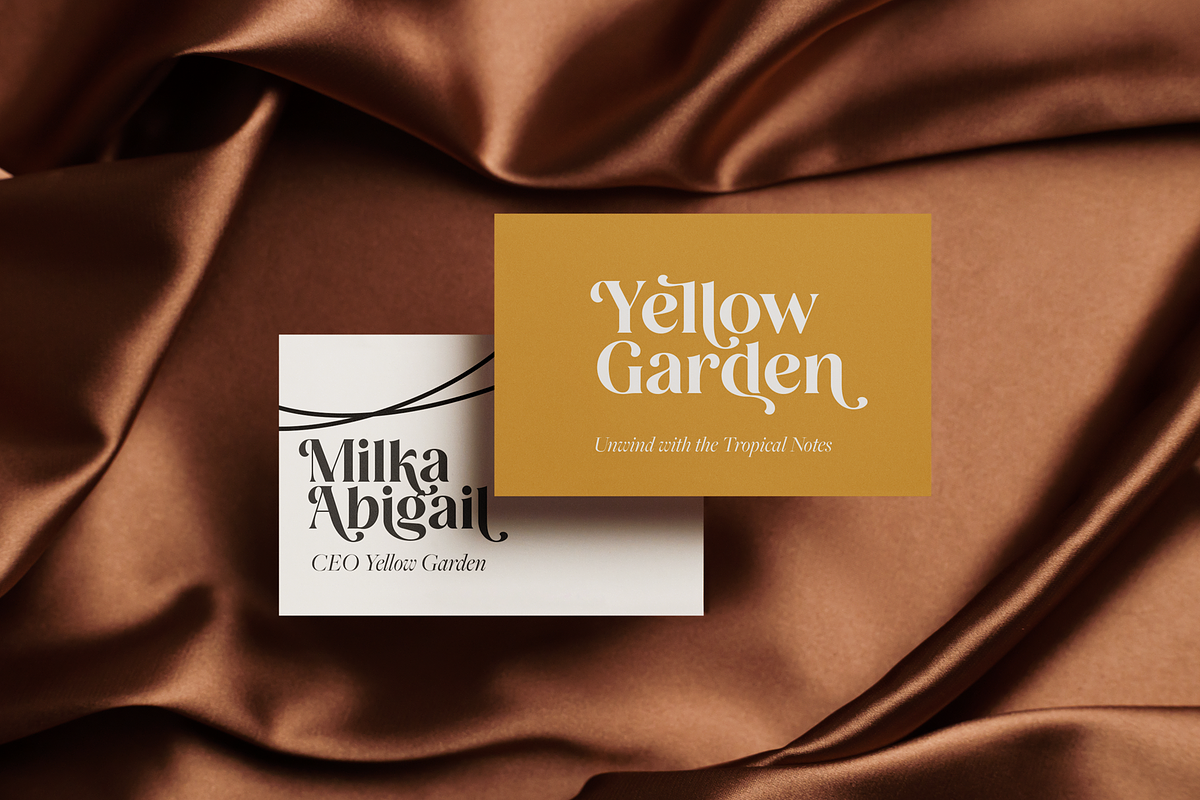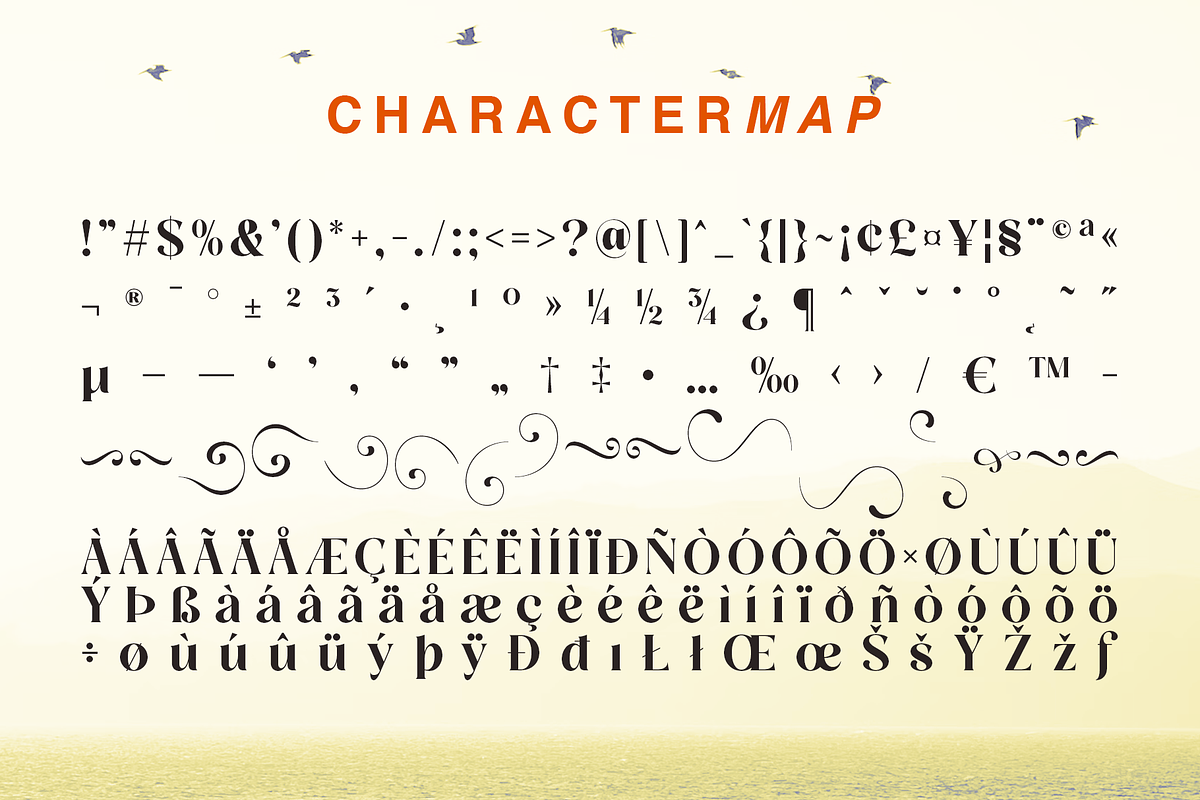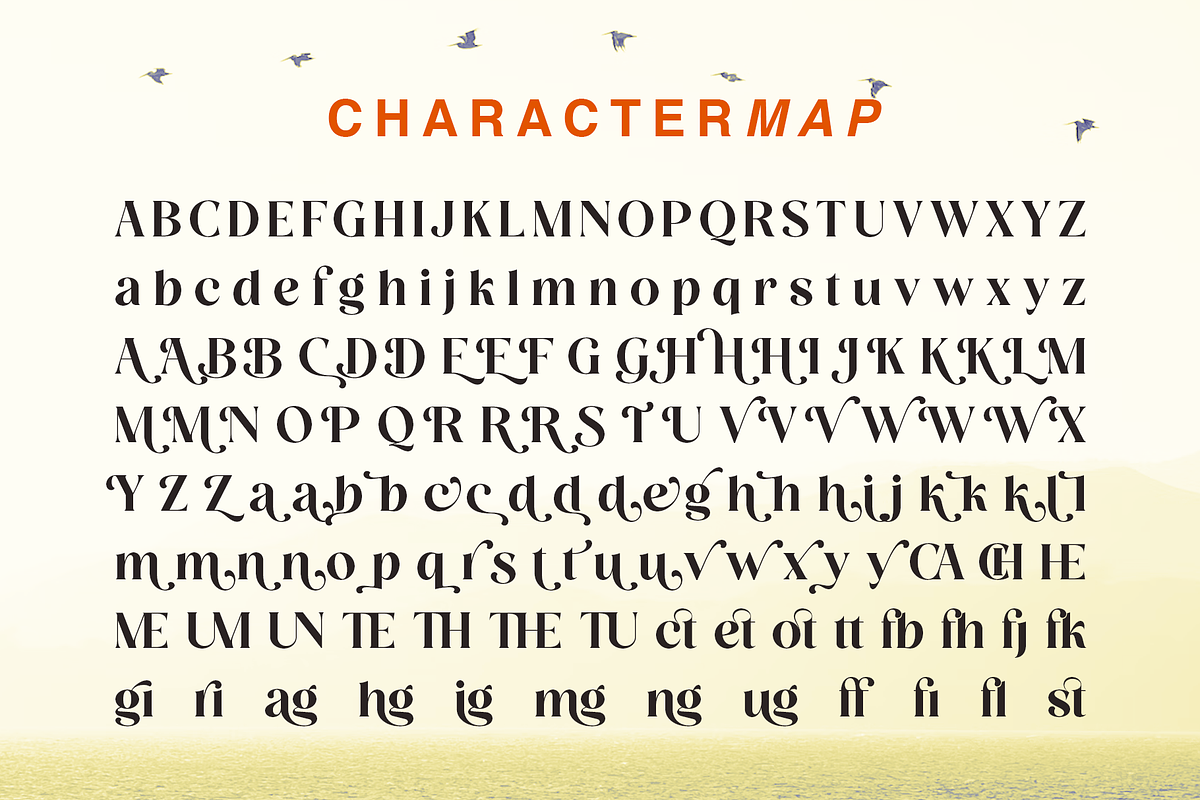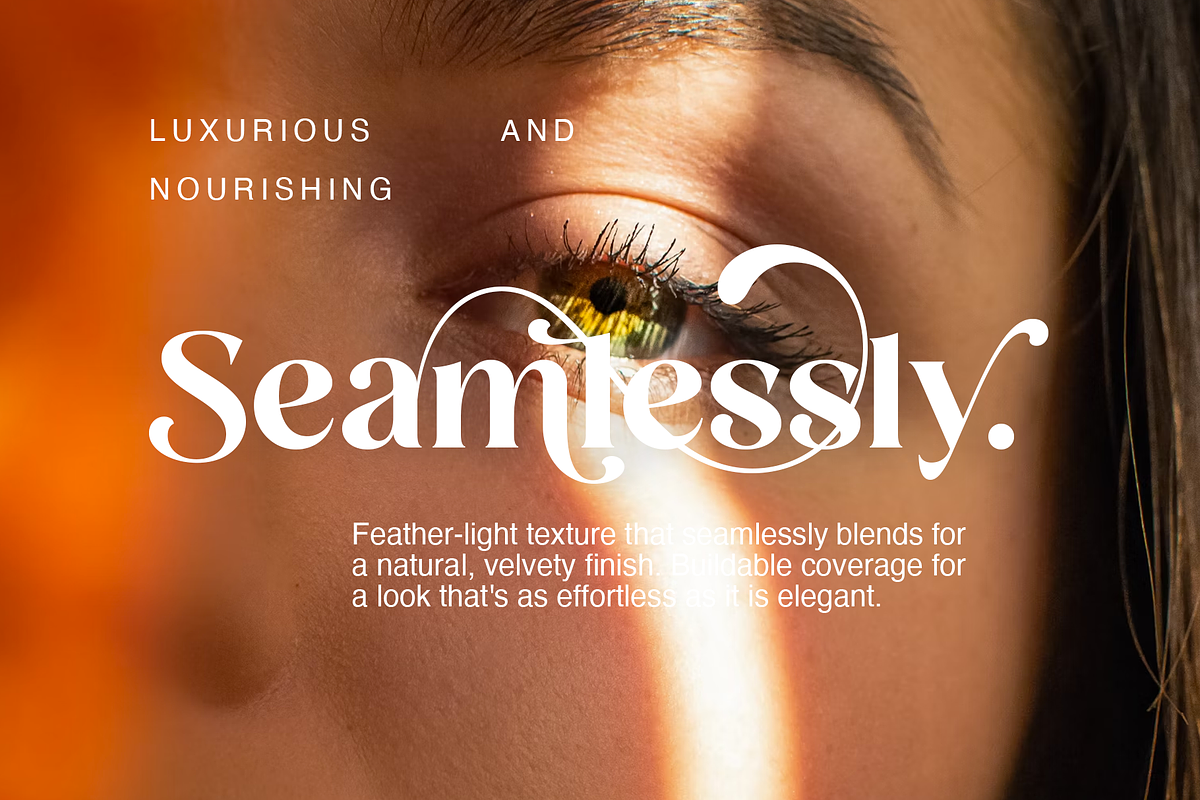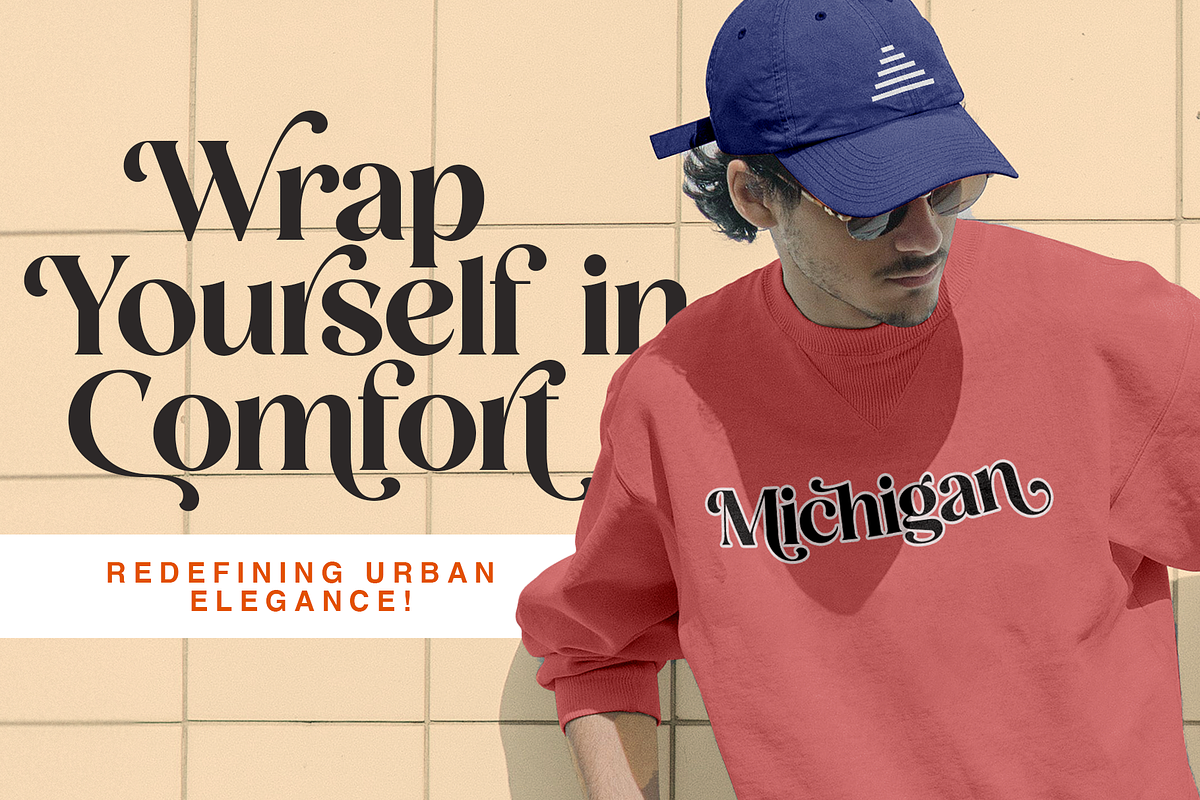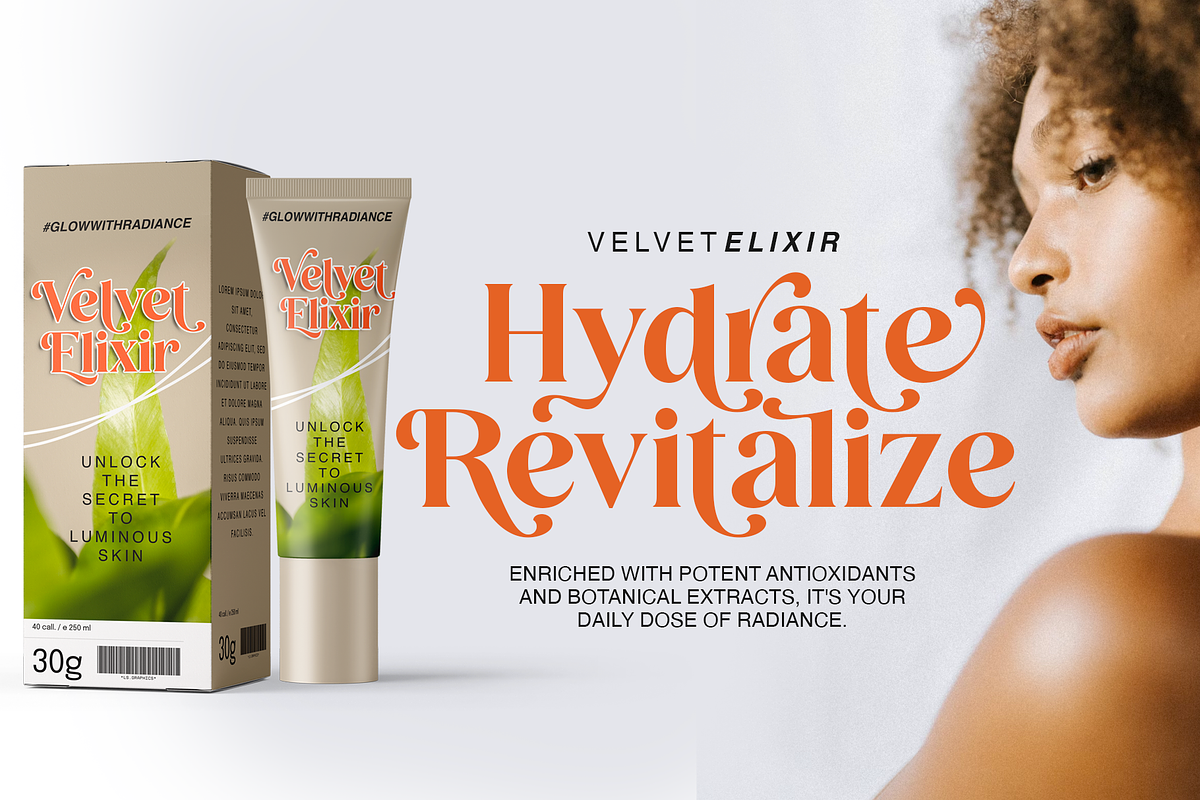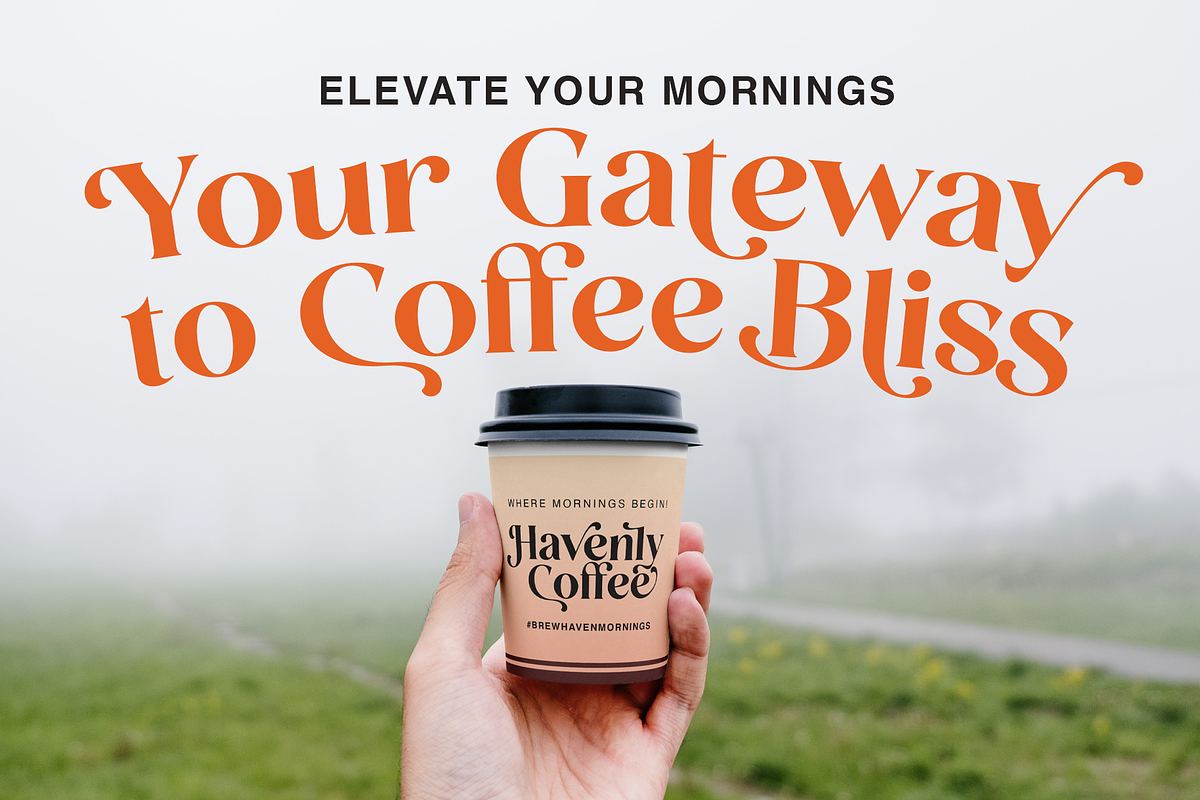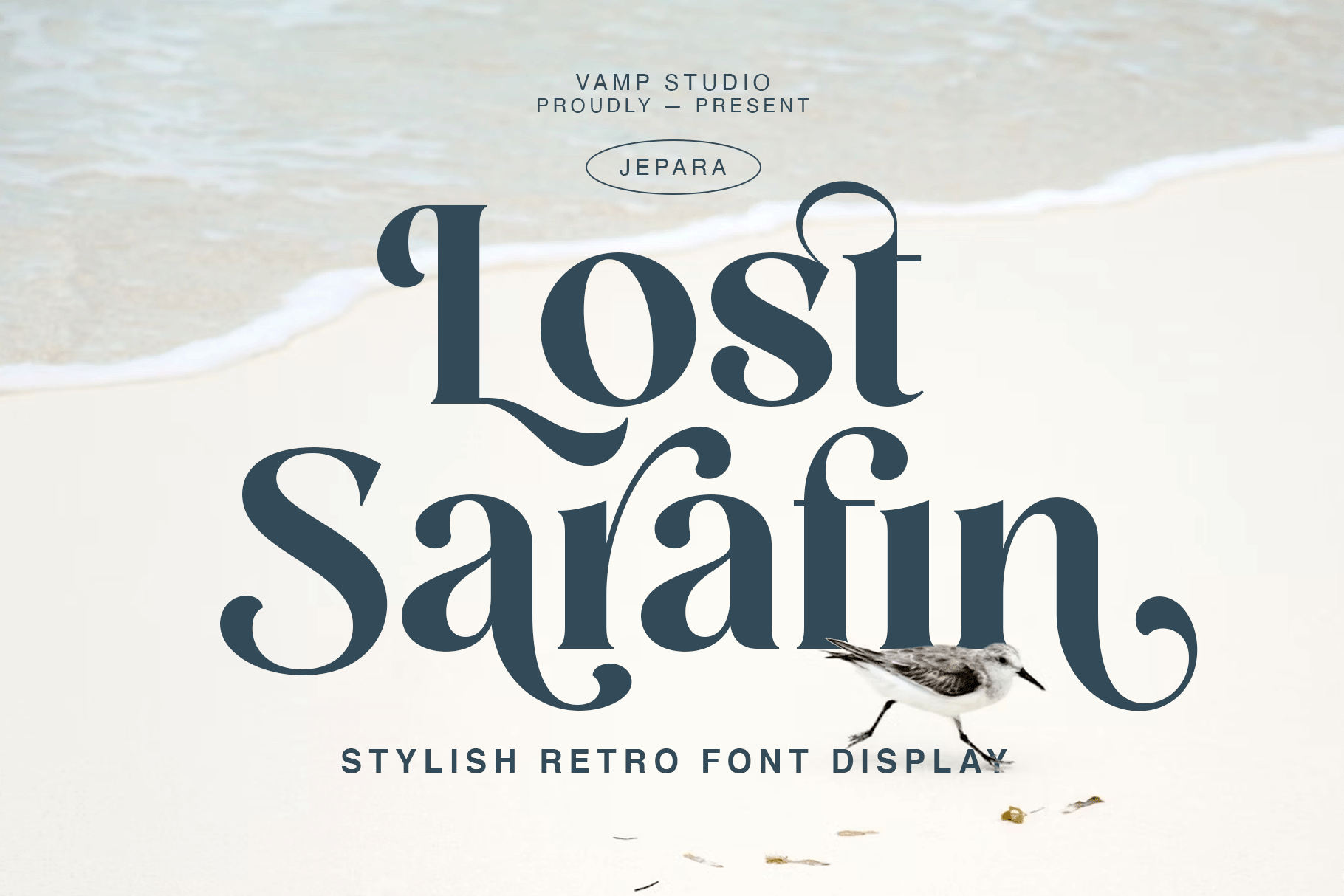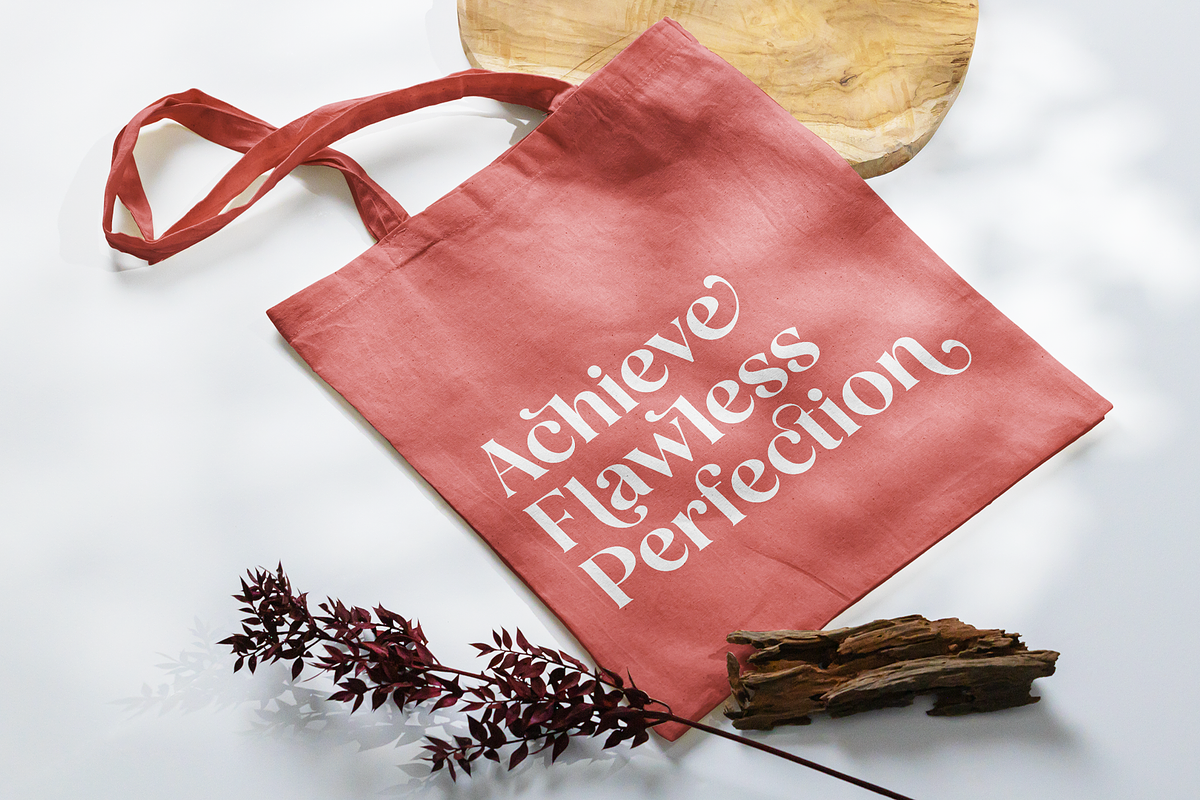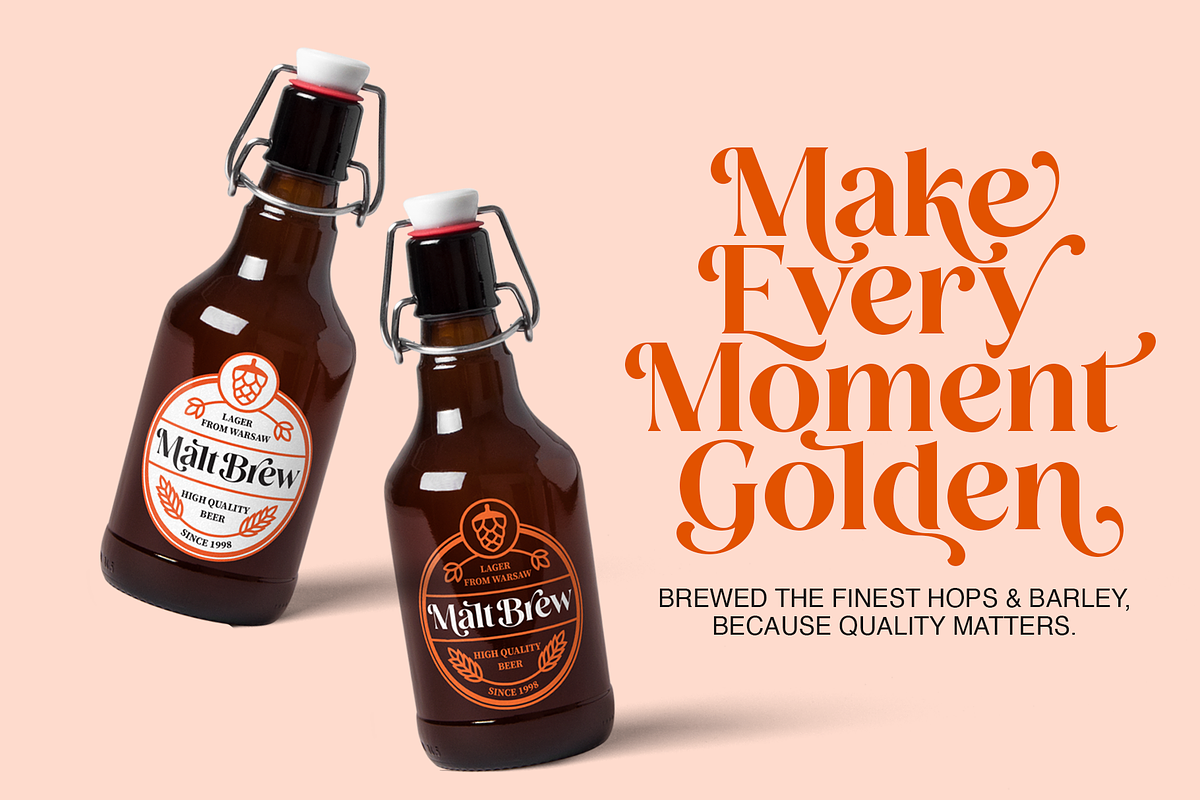
Lost Sarafin Display stylish font
Lost Sarafin Font: A modern take on retro charm. This display serif font is inspired by the timeless elegance of retro styles, blending nostalgia with contemporary design. Perfect for infusing your projects with a touch of sophistication and character.
Explore the fusion of modern aesthetics and retro vibes, as each letter brings a unique balance of style and versatility.
Lost Sarafin is perfect for branding projects, logo, wedding designs, social media posts, advertisements, product packaging, product designs, label, photography, watermark, invitation, stationery and any projects that need handwriting taste.